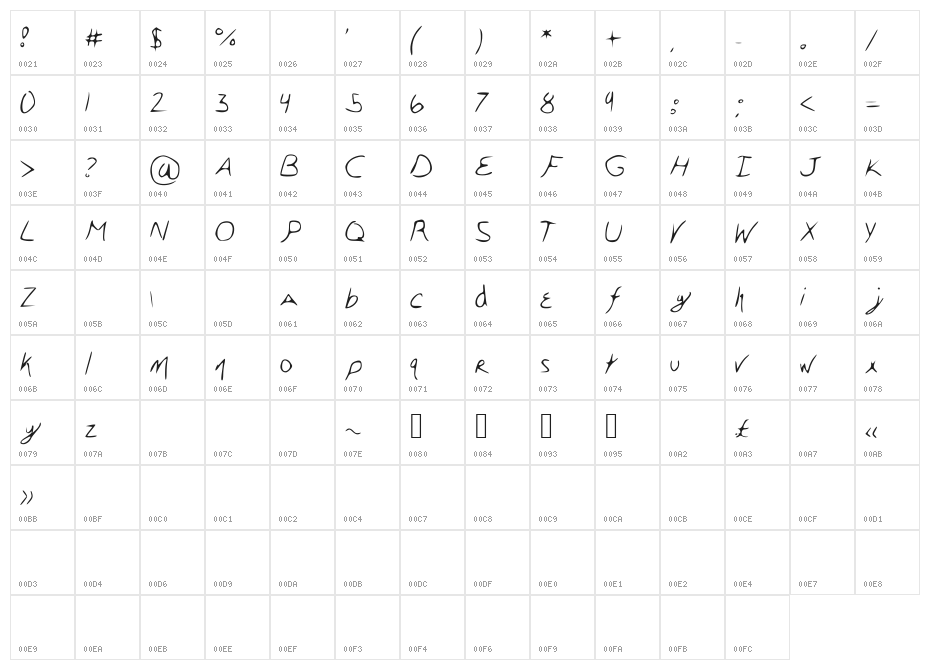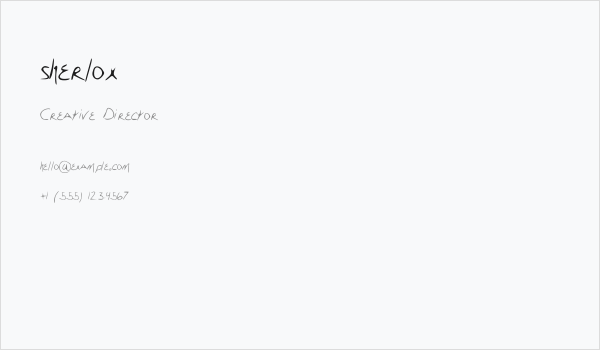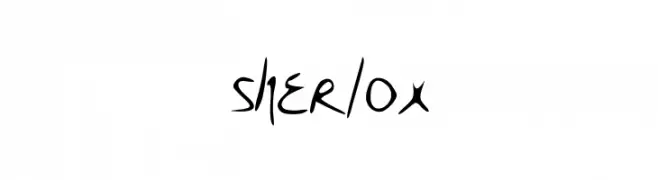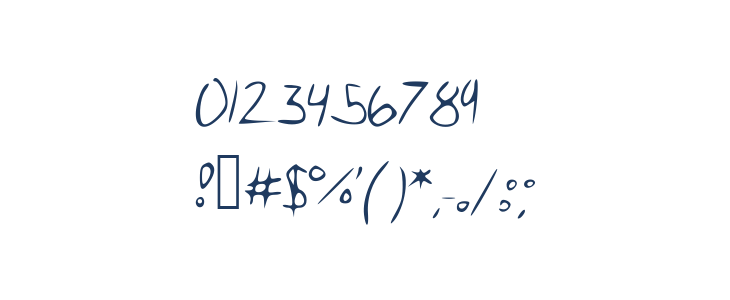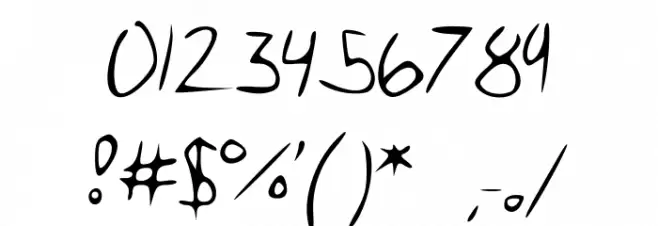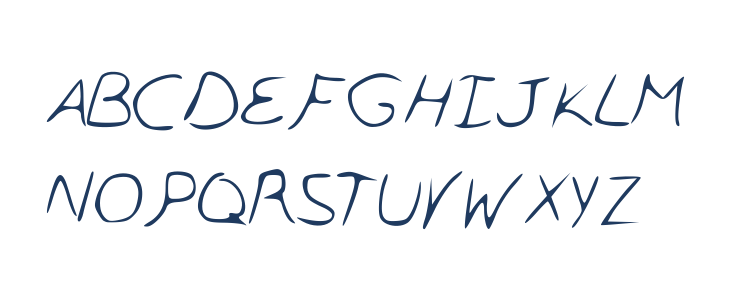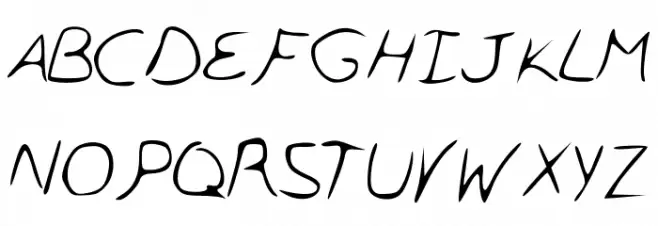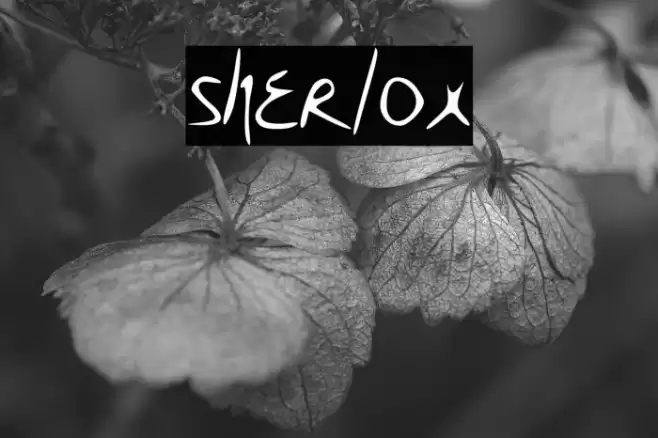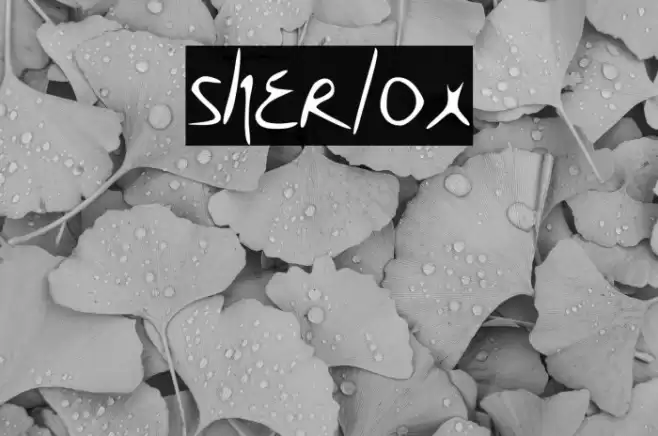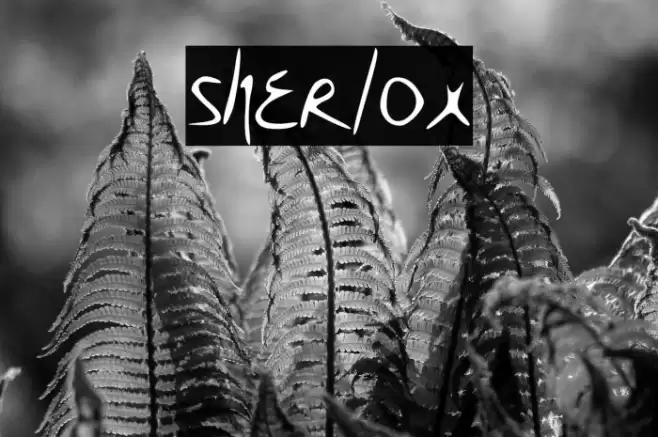
sherlox Font
sherlox Description
A casual, handwritten script font with a playful and informal style, featuring slightly irregular strokes and a dynamic flow.
SHERLOX UPPERCASE
SHERLOX LOWERCASE
SHERLOX OTHER CHARS
| Overall Style | Casual, Handwritten, Playful |
| Use Case | Headlines, Body text, Logos, Invitations, Greeting cards |